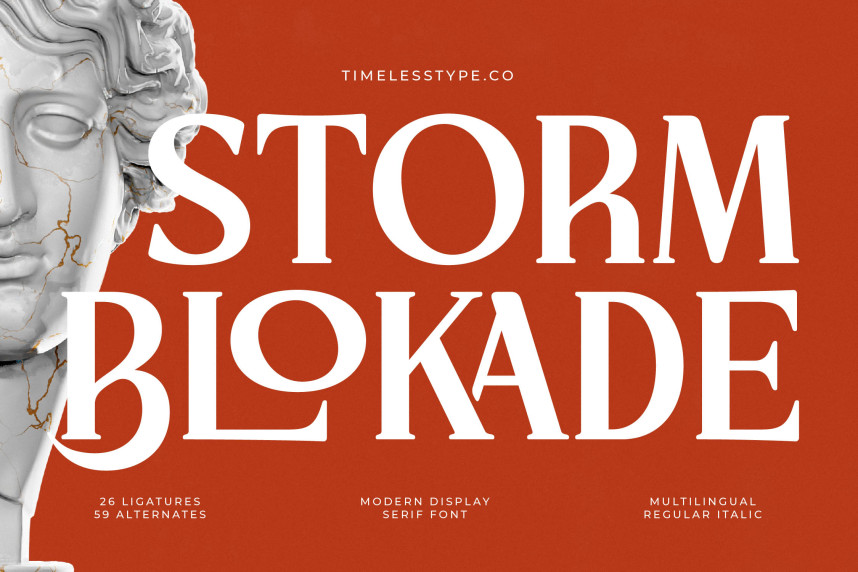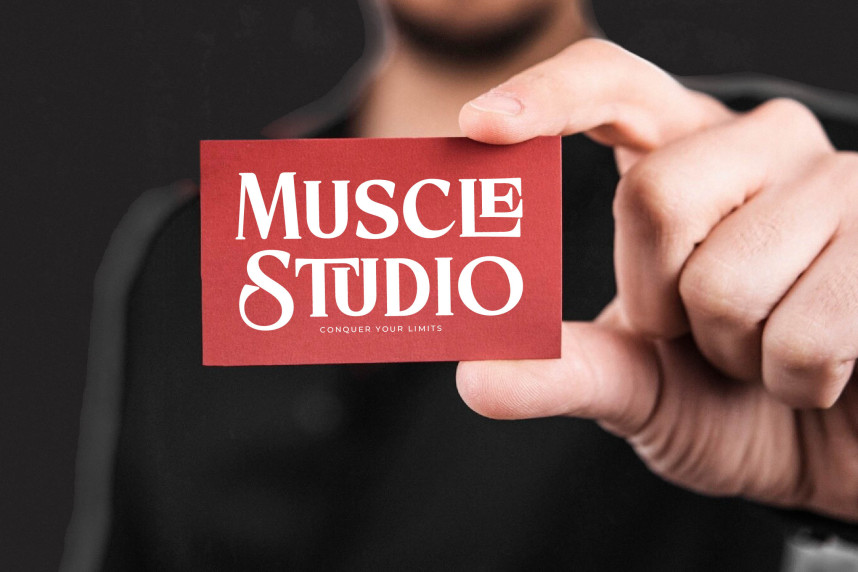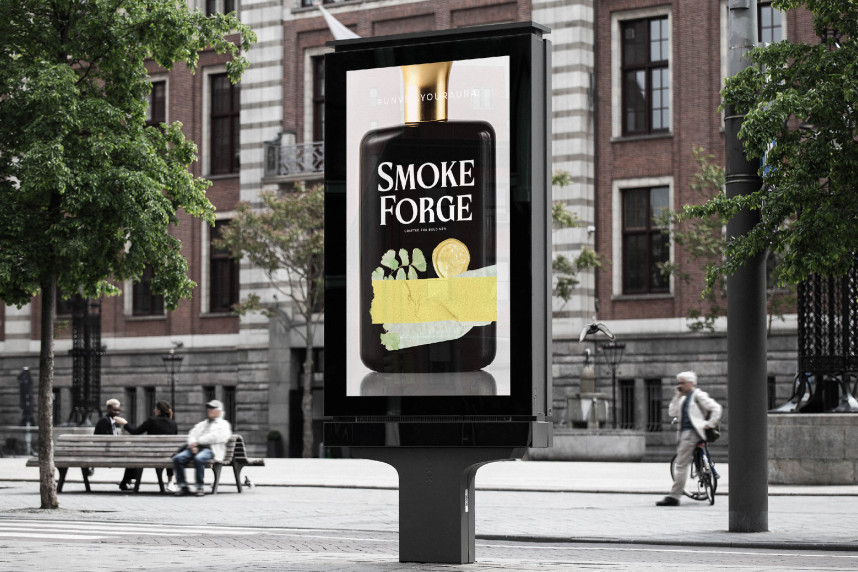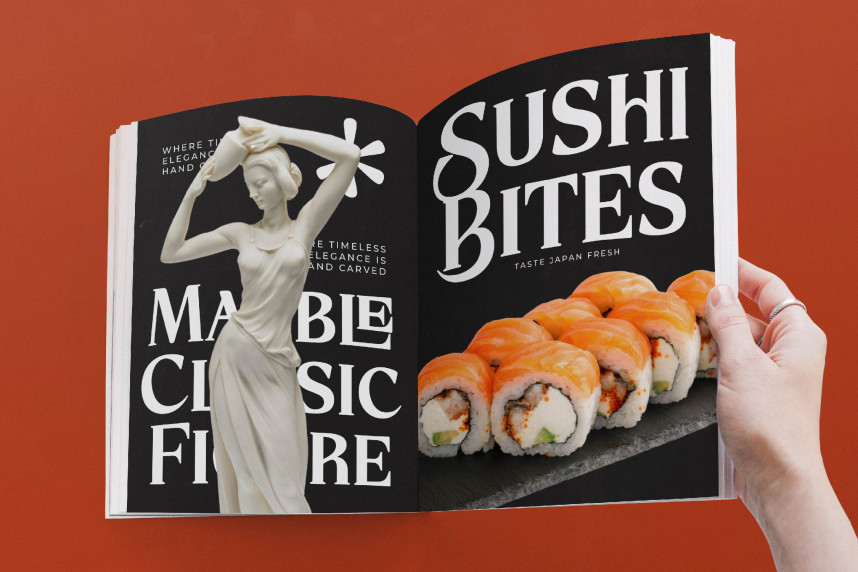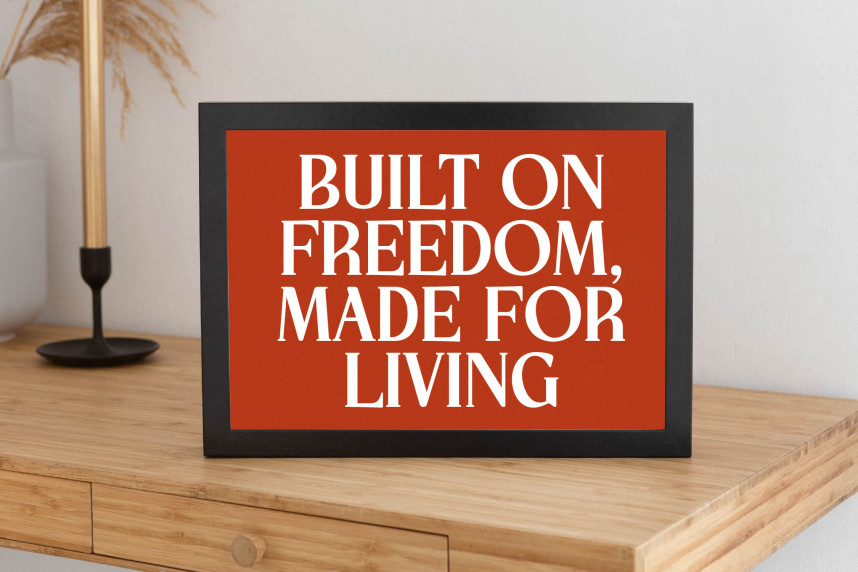
Storm Blokade Font
Storm Blokade Font – Command attention with the exquisite elegance of Storm Blokade – Modern Display Serif Font. This typeface masterfully blends classic serif grace with a decidedly modern display sensibility, creating a truly unforgettable aesthetic. Its high-contrast strokes and refined serifs lend an air of sophistication and exclusivity, ensuring your headlines and branding elements possess immediate visual impact and enduring style.
Unlock boundless creative potential with Storm Blokade – Modern Display Serif Font. Designed for designers who demand distinction, it comes equipped with 26 ligatures and an impressive 59 alternates. These comprehensive features provide unparalleled typographic customization, allowing you to craft unique, compelling designs that truly stand out in any professional context.
Embrace global design opportunities with Storm Blokade – Modern Display Serif Font. With its extensive multilingual support, Storm Blokade – Modern Display Serif Font adapts seamlessly across global markets, making it incredibly versatile for international projects. This ensures your message maintains its intended impact and elegance, no matter the language or region.